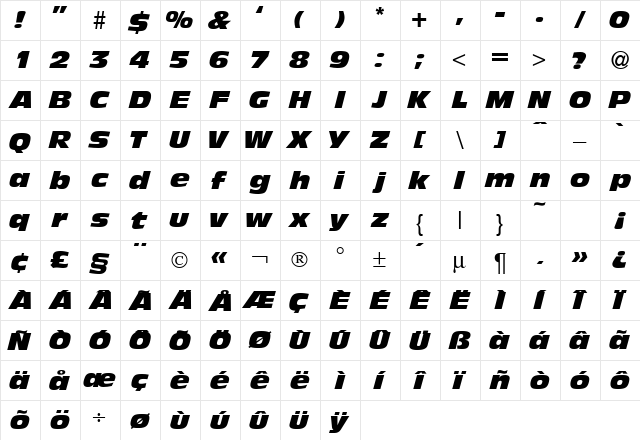
AndyBlackDB Italic
Design Context for AndyBlackDB Typeface
AndyBlackDB offers clean, dependable letterforms without strong stylistic allegiance, making it a practical choice for designers who need flexibility. The dynamic lean of this cut emphasises speed and emphasis in any layout.
Pro Tip: Use AndyBlackDB for emphasis, pull quotes, and subheadings where its slanted energy can add rhythm to the layout.